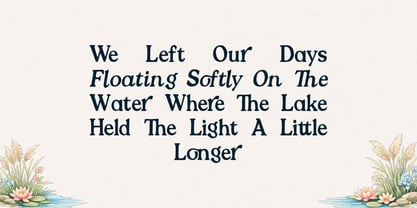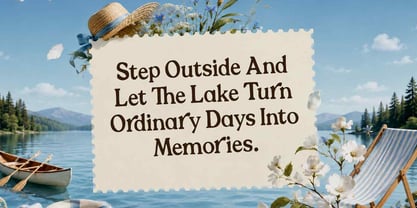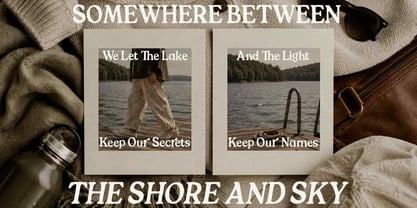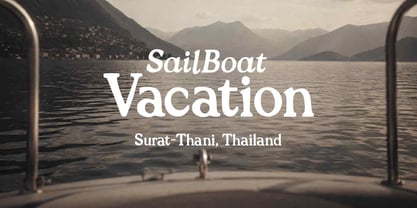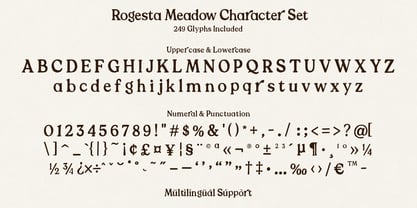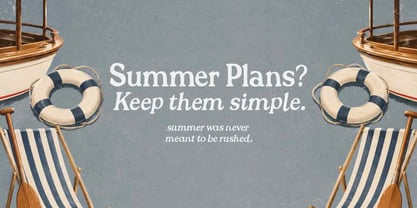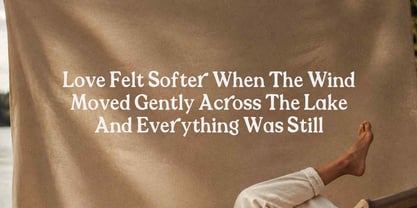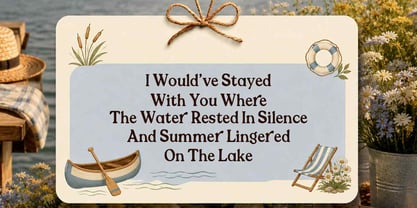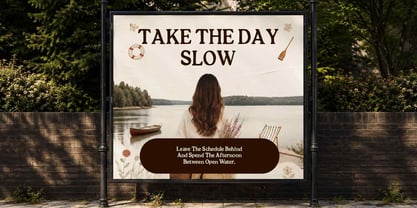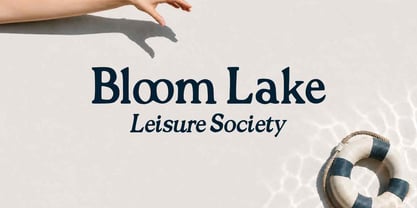
Rogesta Meadow
The Rogesta Meadow Font Family was designed by Naufal Paramata and published by Youngtype. Rogesta Meadow contains 2 styles and family package options. More about this family
Rogesta Meadow is a sophisticated editorial serif typeface that blends vintage elegance, modern character, and expressive typographic details. Its distinctive letterforms feature soft curves, organic shapes, subtle contrast, and beautifully crafted terminals, giving the font a refined yet approachable personality.
Rogesta Meadow is particularly effective for large headlines, elegant titles, branding, and display typography, where its unique personality can truly stand out. The combination of classic serif foundations and playful, organic letterforms gives it a warm heritage-inspired yet contemporary feel.
Key Features:
- Uppercase & Lowercase
- Multilingual Support
- Numerals & Punctuation
- Ligatures
- Alternates
- 249 Glyphs
Rogesta Meadow is a versatile choice for designers looking to create typography that feels graceful, distinctive, artistic, and effortlessly sophisticated.